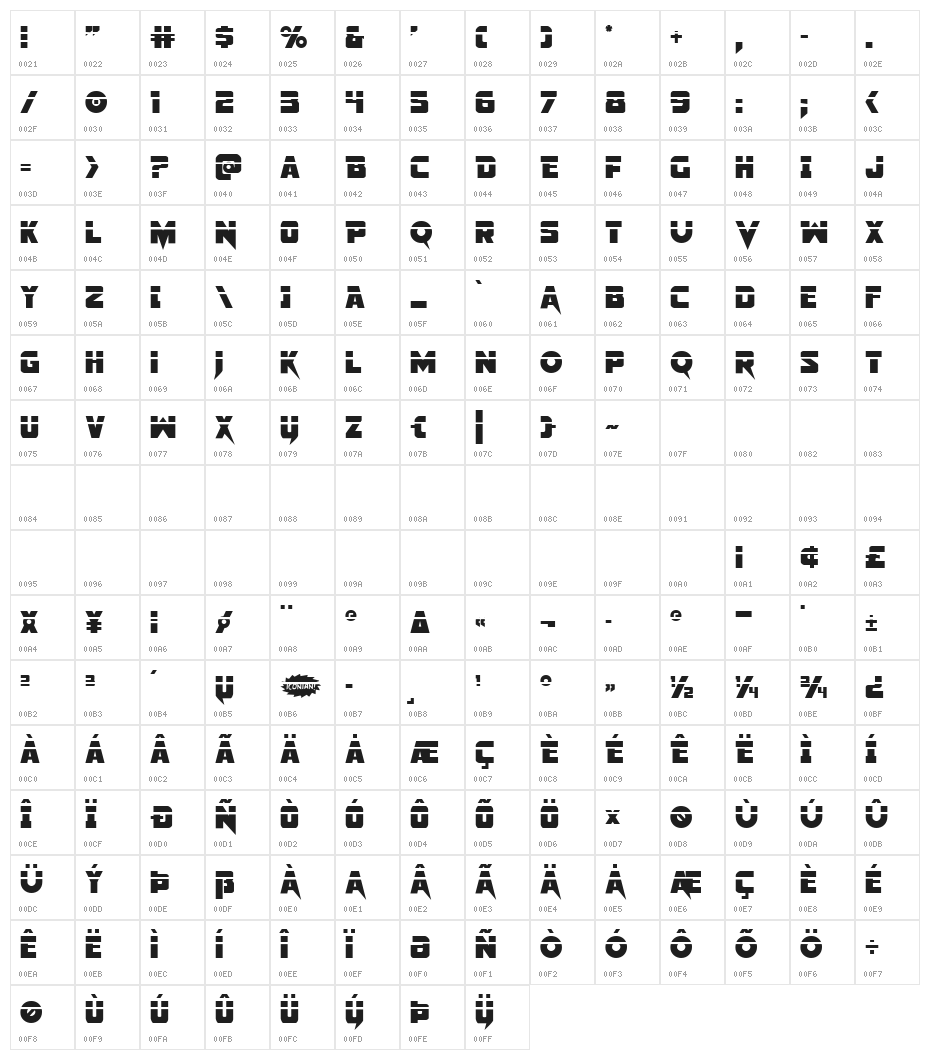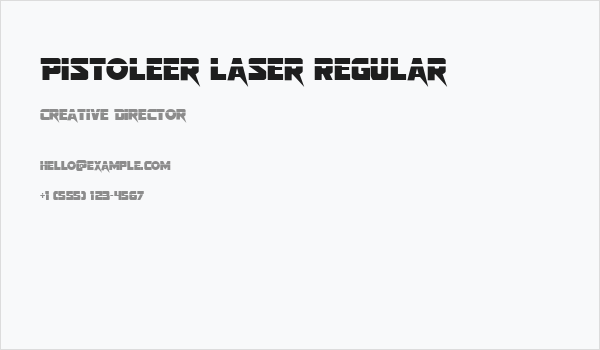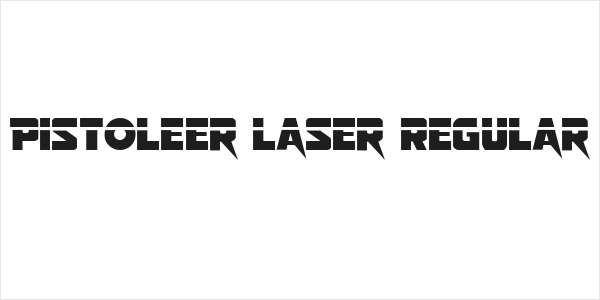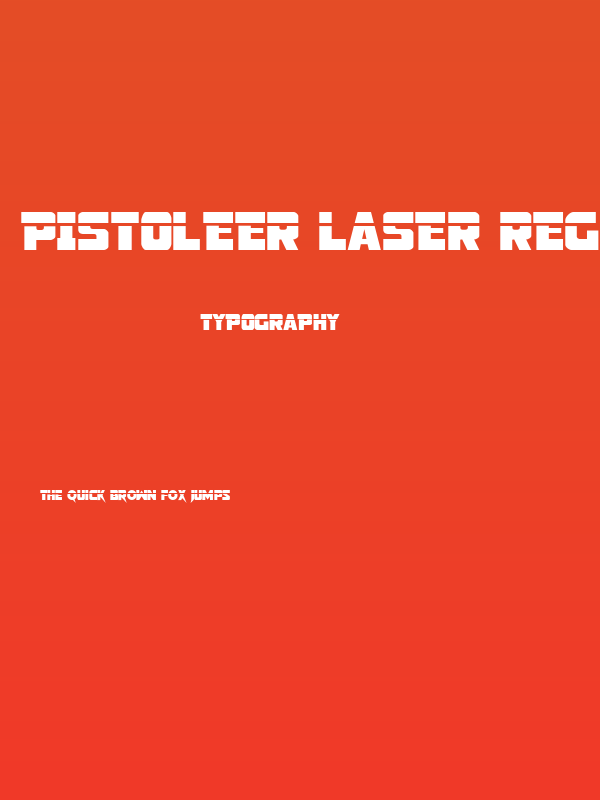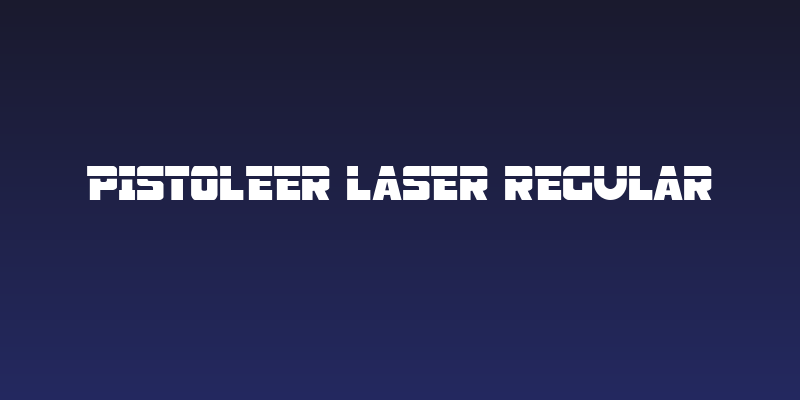
Pistoleer Laser Regular Font
Pistoleer Laser Regular Description
This font features a bold, futuristic design with sharp, angular edges and a strong geometric structure. The characters are heavily stylized, with a distinct sci-fi aesthetic that is both modern and aggressive. The uppercase and lowercase letters maintain a consistent style, emphasizing sharp points and thick lines. Numbers and special characters follow the same design principles, ensuring uniformity across all glyphs. The font's unique appearance makes it ideal for projects that require a standout, eye-catching typeface.
| Proposed Projects | Ideal for video game titles, movie posters, tech branding, and futuristic-themed designs. |